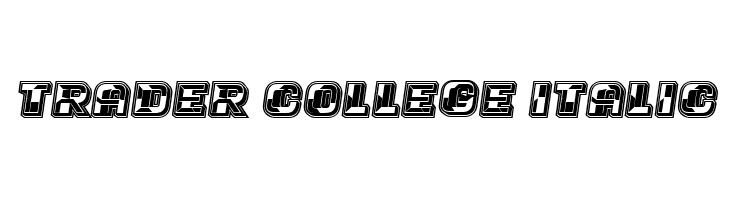
Bold, italicized font with a college varsity style and 3D effect.
A bold, geometric font with a three-dimensional effect and strong visual impact.
A bold, geometric font with a filled interior and outlined design, offering a modern and industrial look.
A bold, three-dimensional collegiate-style font with a strong, blocky design.
Bold, italicized collegiate font with a strong, outlined design.
Bold, italicized font with a filled, layered, three-dimensional effect.
A bold, collegiate-style font with a filled, outlined appearance.
A bold, italic font with geometric outlines and striped interiors, offering a modern and dynamic look.
A bold, geometric font with a three-dimensional effect and contrasting outlines.